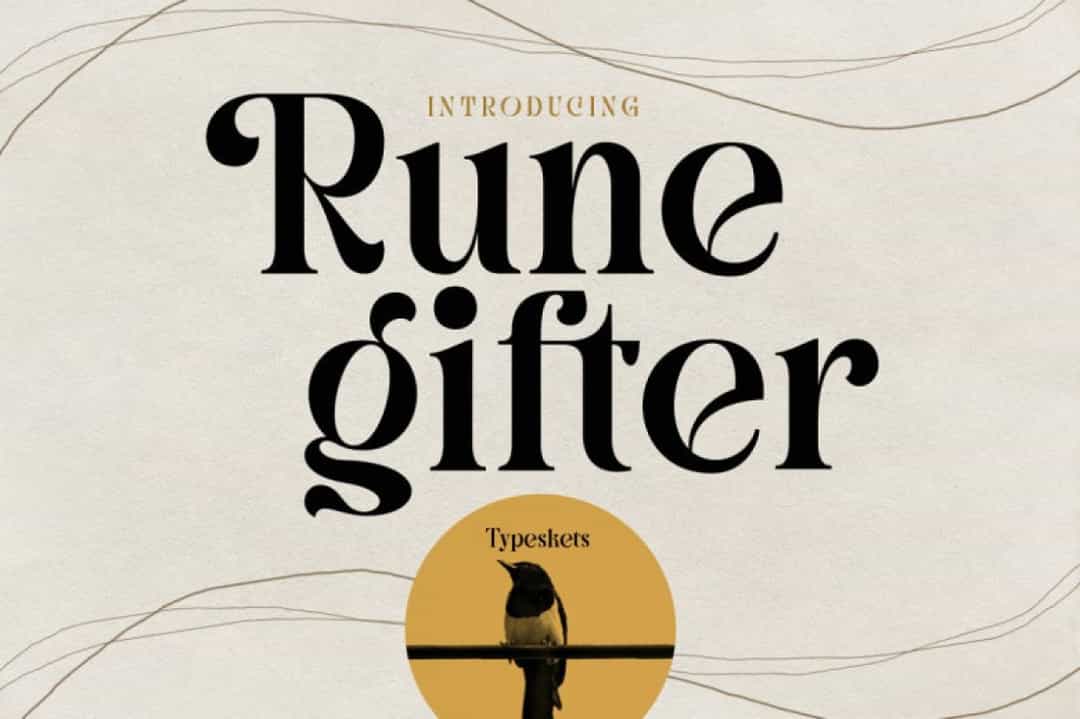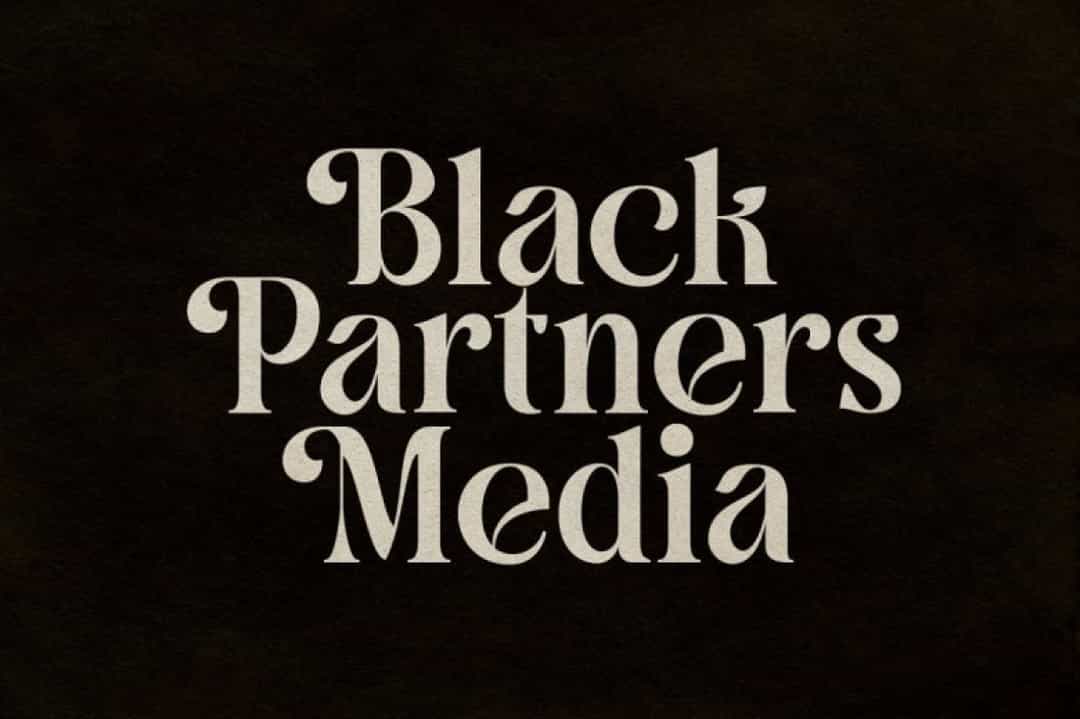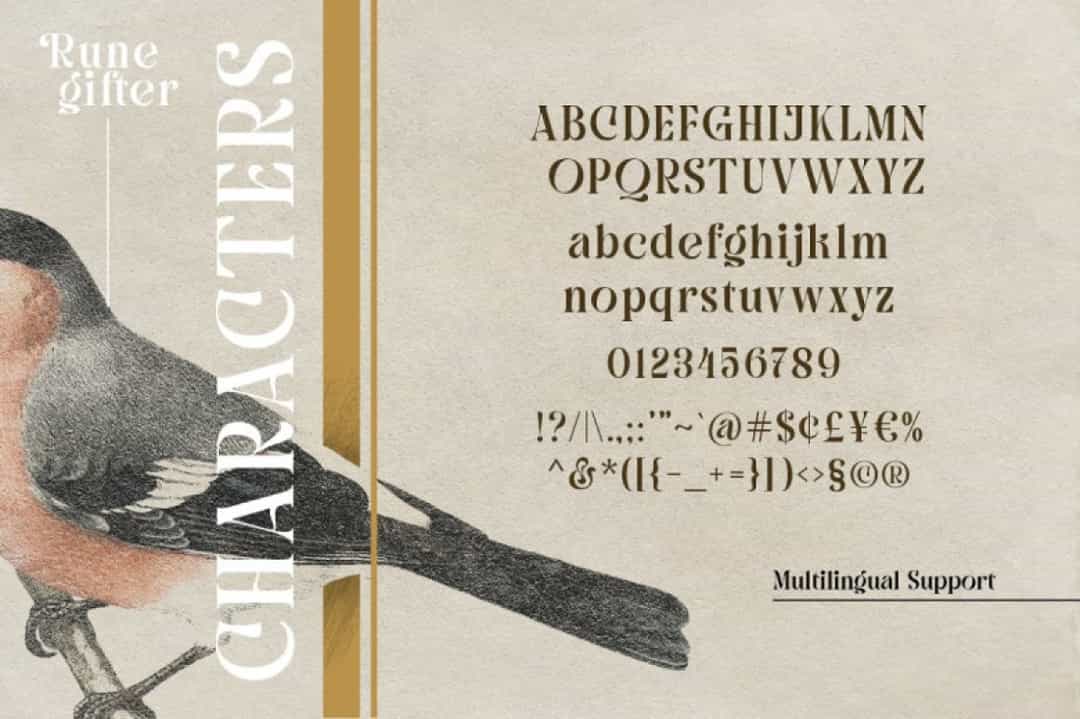
Rune Gifter is an impressive, modern and fashionable serif font characterized by soft curves. Perfect for fashion-related branding or editorial designs. Incorporate it into your designs for an enjoyable result.